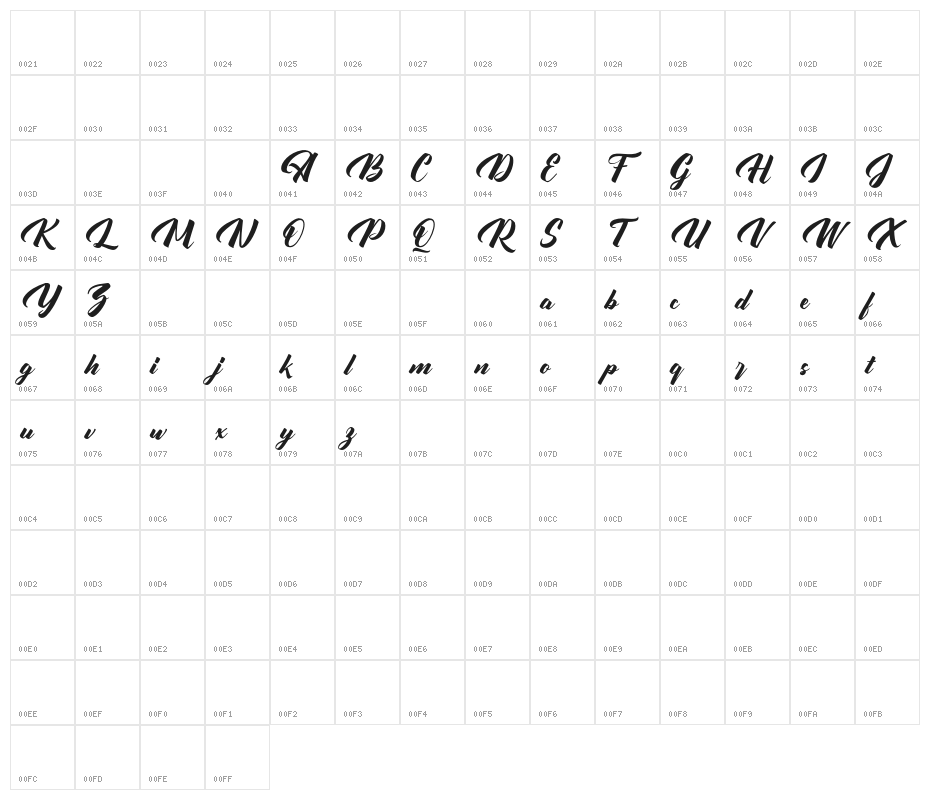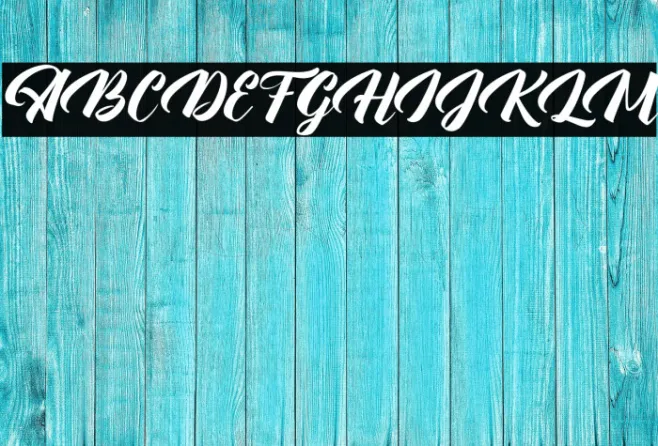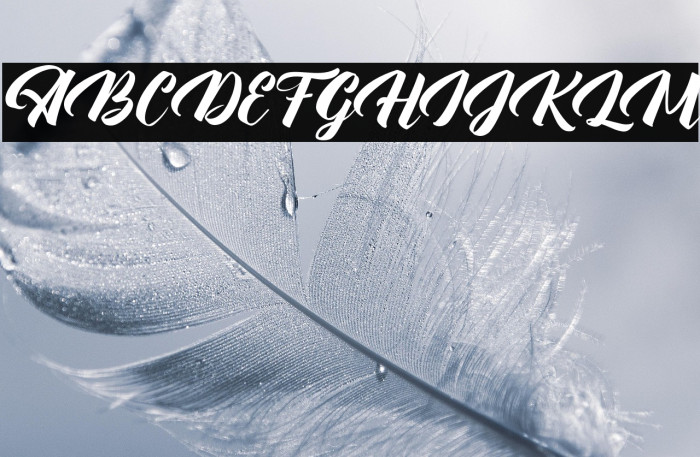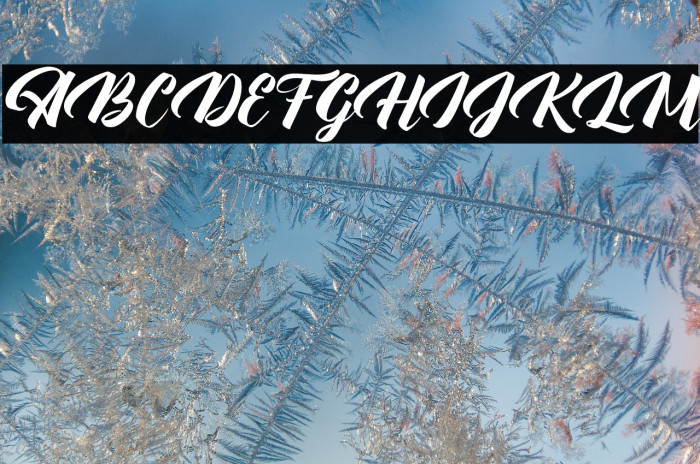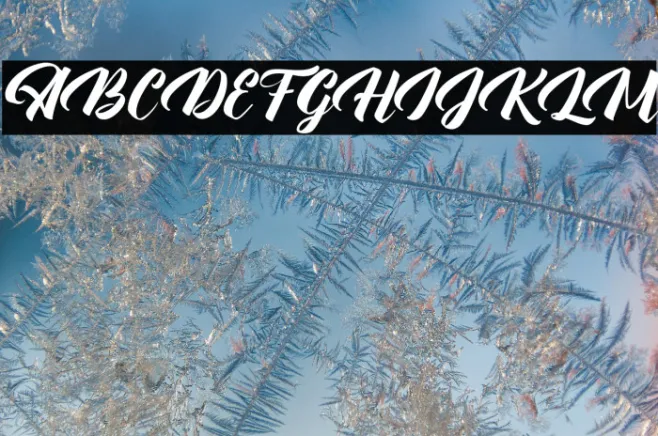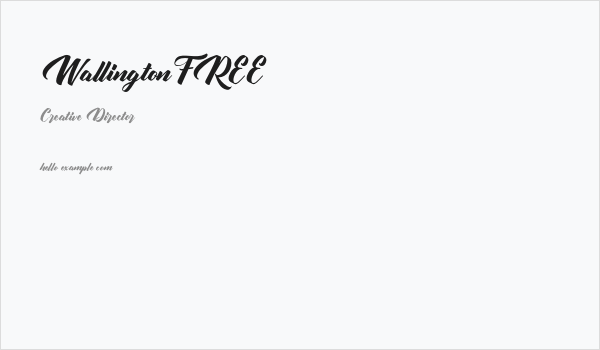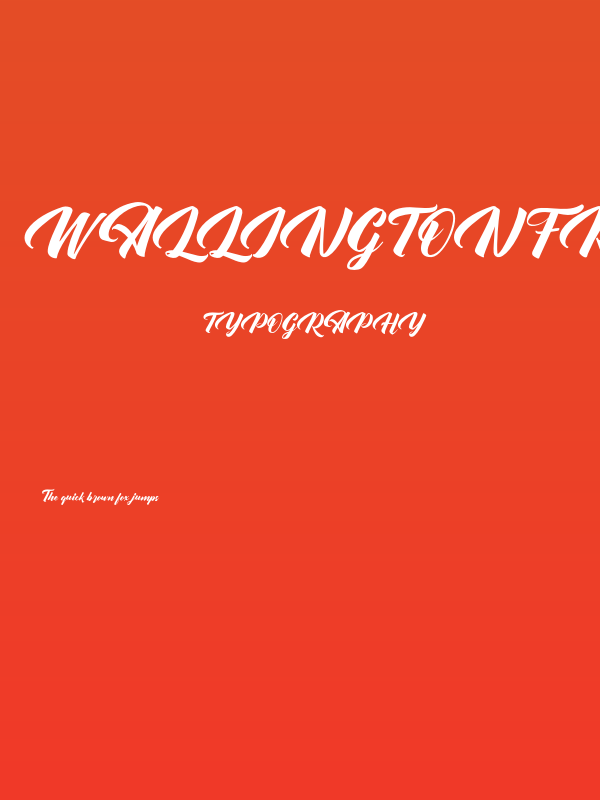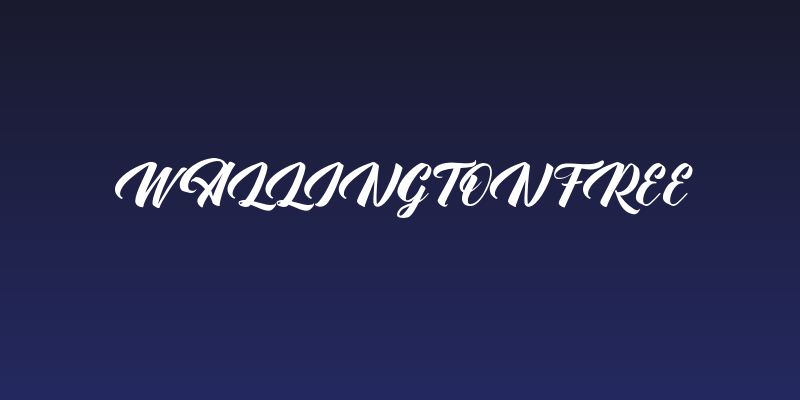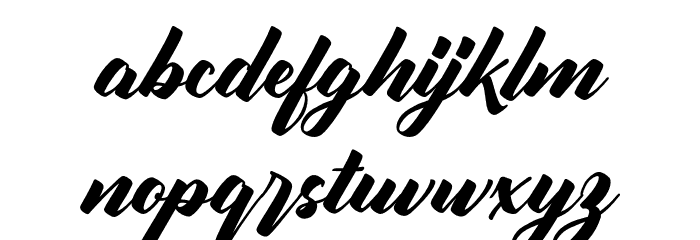
WallingtonFREE Font
WallingtonFREE Description
This font features a bold and elegant script style, characterized by its flowing, cursive letters that convey a sense of sophistication and flair. The uppercase letters are particularly ornate, with sweeping curves and flourishes that add a decorative touch. The lowercase letters maintain a consistent style, offering a smooth and connected appearance that enhances readability while retaining an artistic flair. This font's bold weight and high contrast between thick and thin strokes make it stand out, ideal for creating eye-catching designs. Its overall style is modern yet timeless, suitable for a variety of creative projects.
| Proposed Projects | Ideal for wedding invitations, branding, logo design, and elegant stationery. |